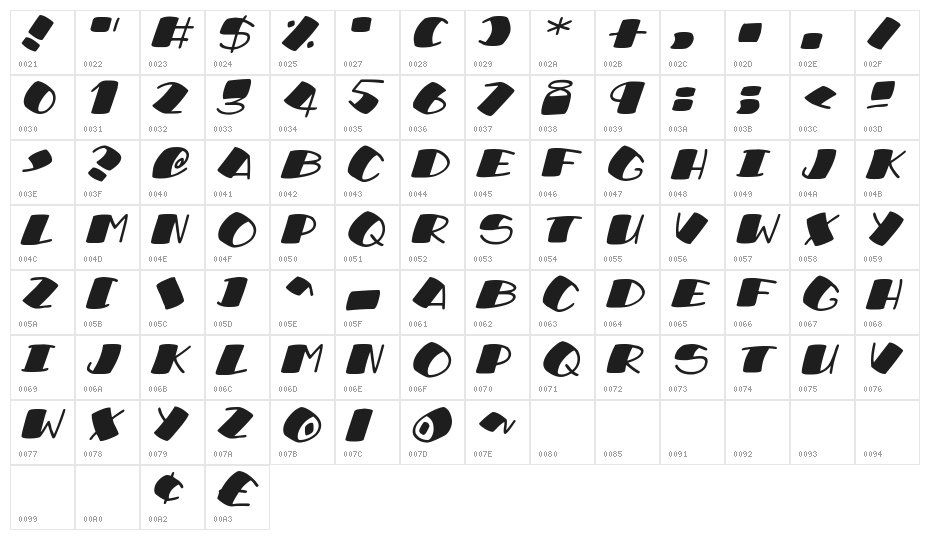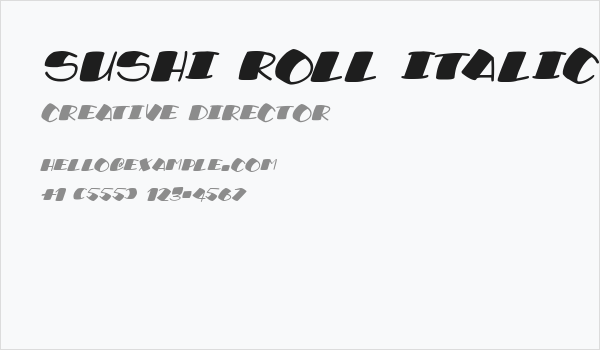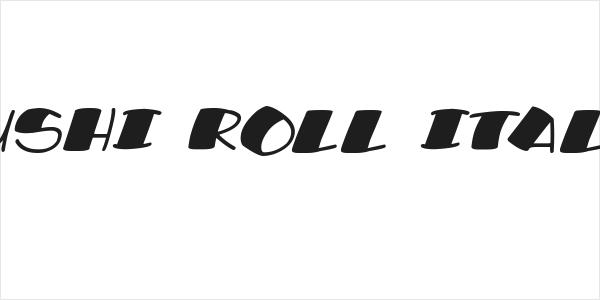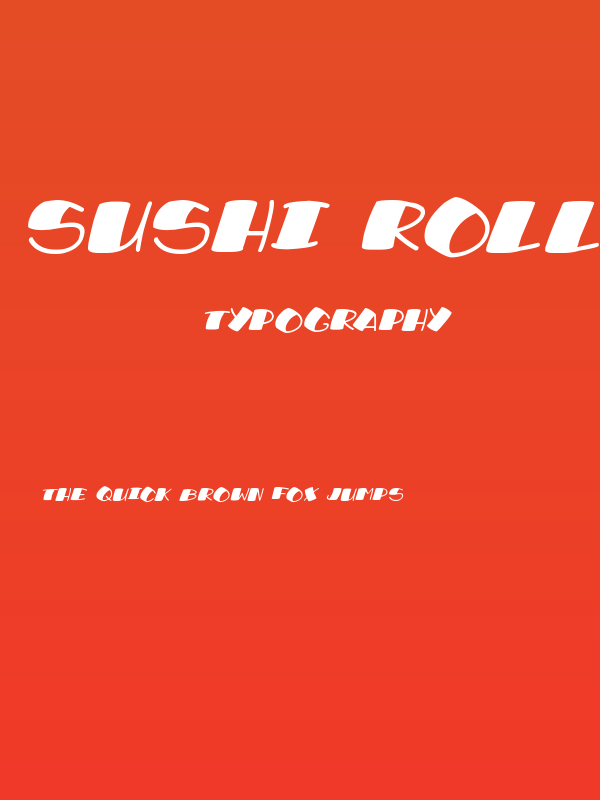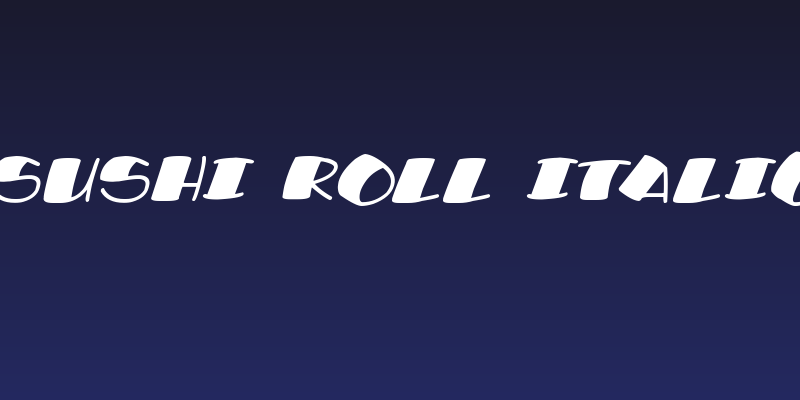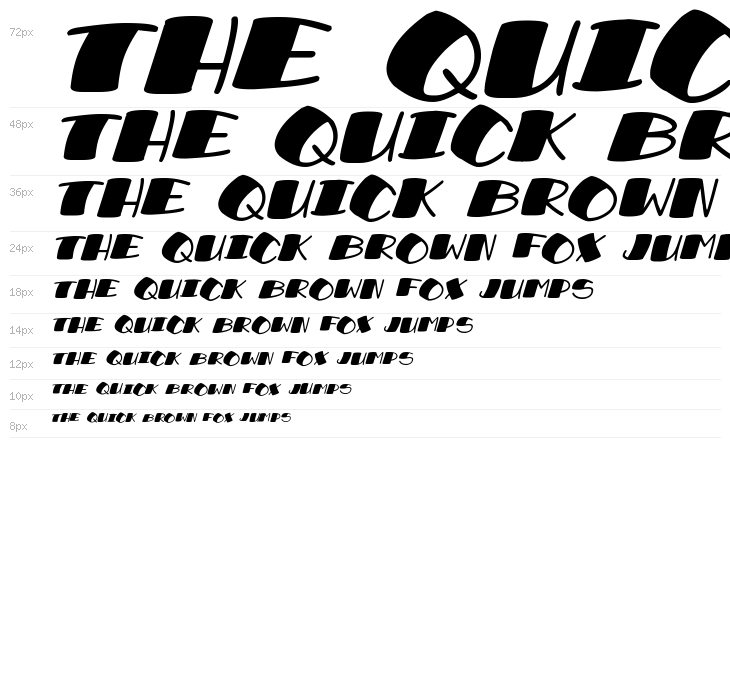
Sushi Roll Italic Font
Sushi Roll Italic Description
This font features a bold, italicized style with a playful and dynamic appearance. The characters are thick and rounded, giving them a strong presence on the page. The strokes are smooth and fluid, creating a sense of motion and energy. The uppercase and lowercase letters maintain a consistent style, with the lowercase letters slightly smaller and more compact. The numbers are equally bold and maintain the same playful aesthetic. Special characters are included, matching the overall style with a bold and rounded form. This font is ideal for projects that require a fun and energetic vibe.
Darrell Flood
| Overall Style | Playful, Energetic |
| Proposed Projects | Ideal for branding, posters, and playful graphic design projects. |